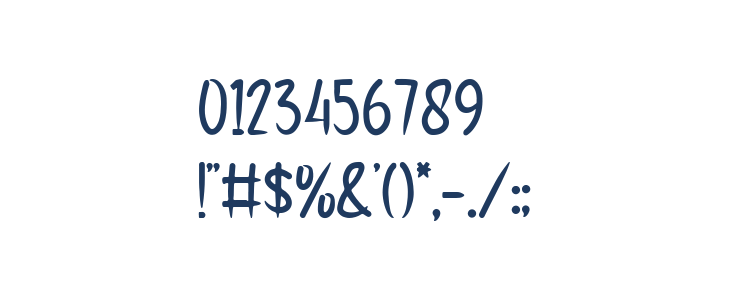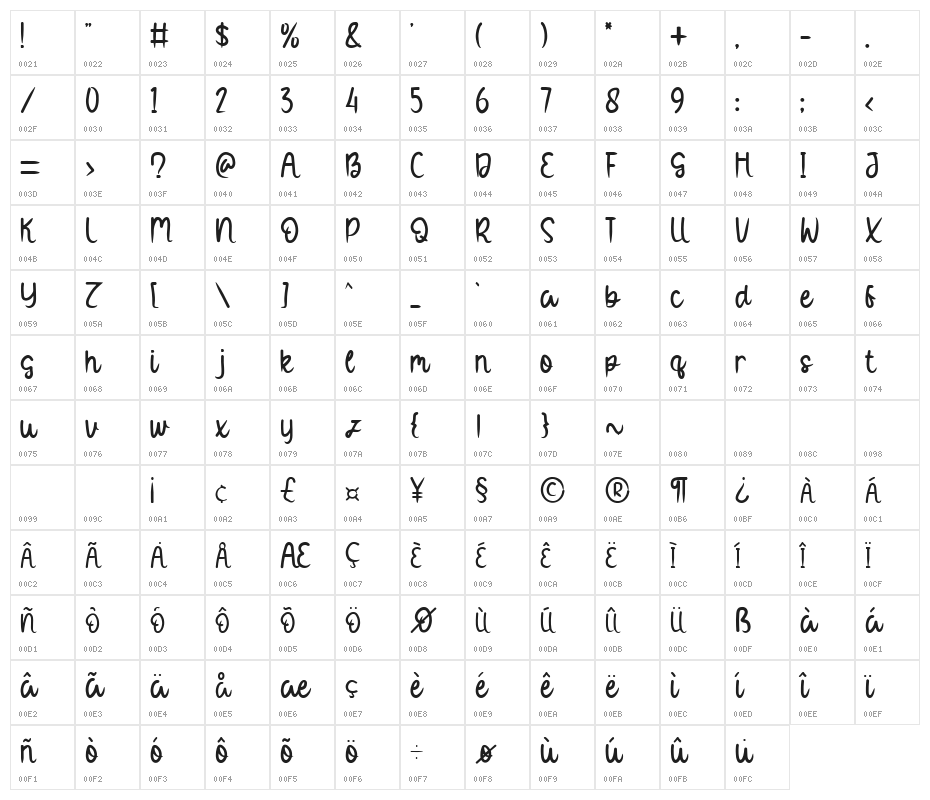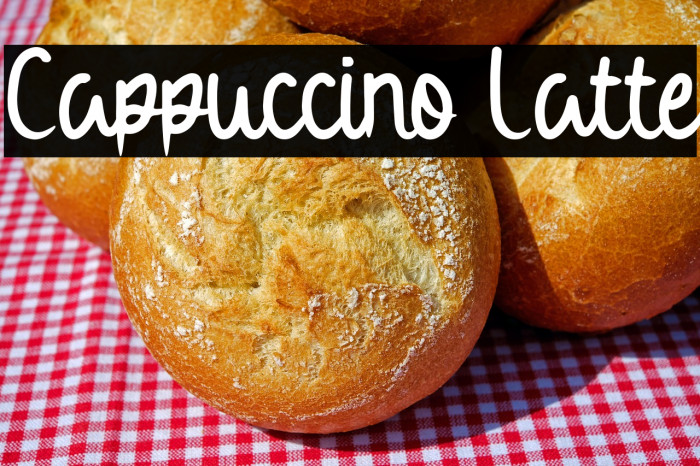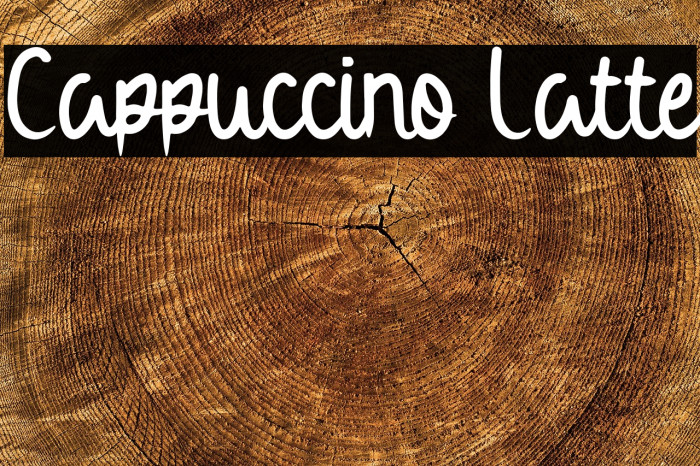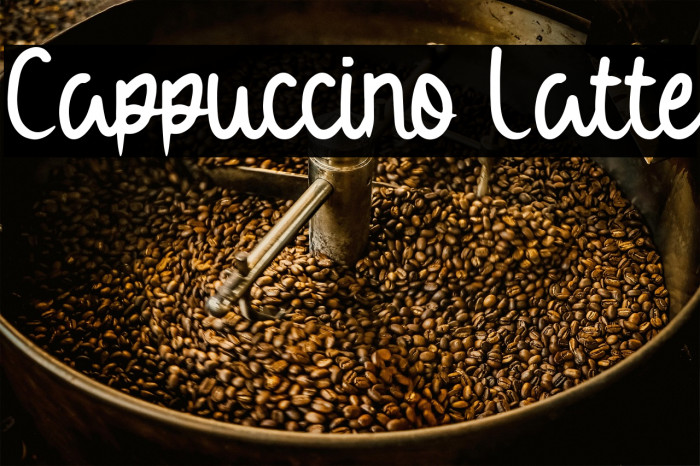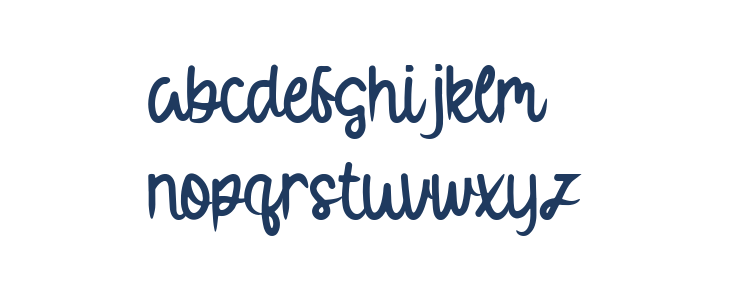
Cappuccino Latte Font
Cappuccino Latte Description
This font features a playful and casual handwritten style, characterized by its smooth, flowing curves and slightly irregular letterforms. The uppercase letters are bold and rounded, giving a friendly and approachable feel, while the lowercase letters maintain a consistent flow with a touch of whimsy. The numerals are clear and easy to read, matching the overall style of the alphabet. Special characters are well-integrated, maintaining the same playful aesthetic. This font is perfect for projects that require a personal touch, such as invitations, greeting cards, or branding for creative businesses.
| Proposed Projects | Ideal for invitations, greeting cards, creative branding, and personal projects. |